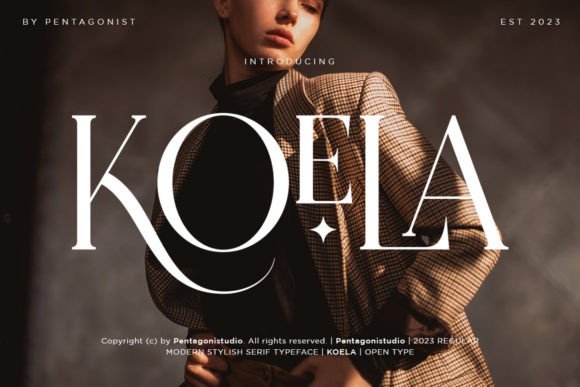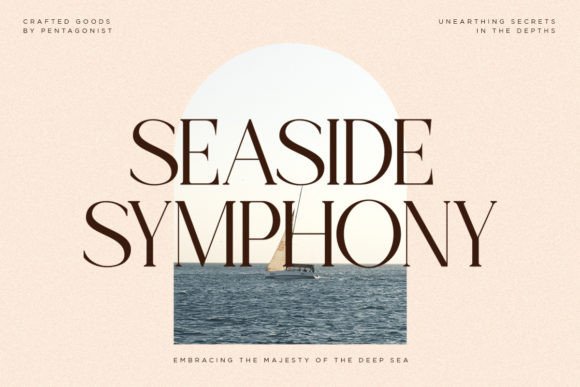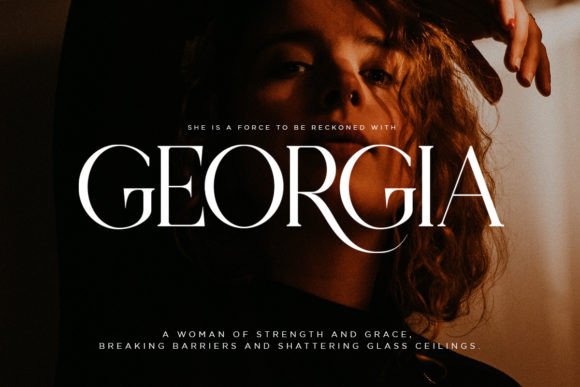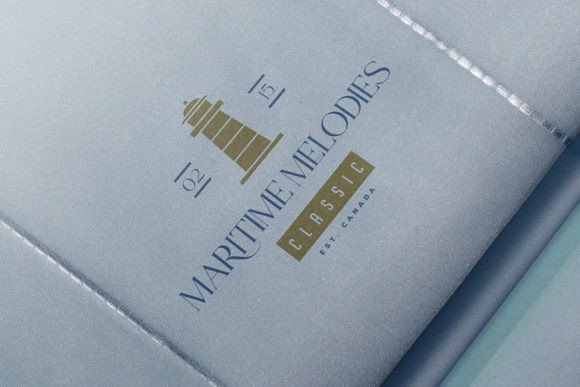
Koela Font: Modern Serif Typography for Elegant Branding
About the Koela Font
Unleash your creativity with Koela Font, a versatile font perfect for a wide range of applications. Koela Is A Modern Serif Font with Stylistic Alternates and Ligatures. Modern serif font with exciting variations. Bring a little magic or romance to your work—a fun twist on a classy serif font’s traditional look and feel.
Koela’s elegant yet playful personality makes it ideal for headlines, short text blocks in branding materials, and stylish packaging designs. Its unique character shines in posters and invitations where it can convey a touch of sophistication and whimsy. However, its decorative nature makes it less suitable for body text or UI elements where readability is paramount. Avoid using Koela in long paragraphs or for smaller sizes.
Pairing Koela effectively depends on the desired emphasis. For a classic feel, consider pairing it with a clean sans-serif like Montserrat or Lato. To accentuate its playful side, a rounded geometric sans-serif like Circular Std could be effective. For a more luxurious look, a delicate script font would complement Koela’s refined serifs.
Koela’s overall aesthetic leans towards a modern, slightly romantic feel, balancing boldness with grace. This makes it a strong choice for brands aiming for a sophisticated yet approachable image, particularly in the fashion, beauty, or lifestyle sectors.
Koela Font Usage Examples
Koela Font Example